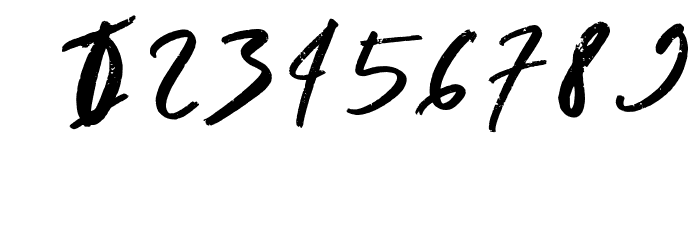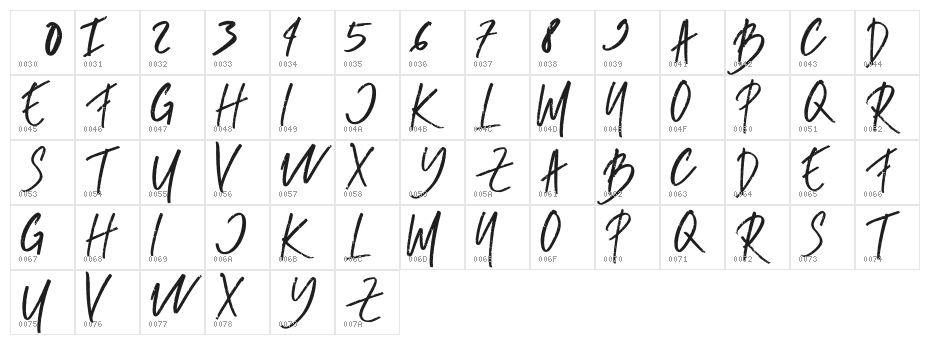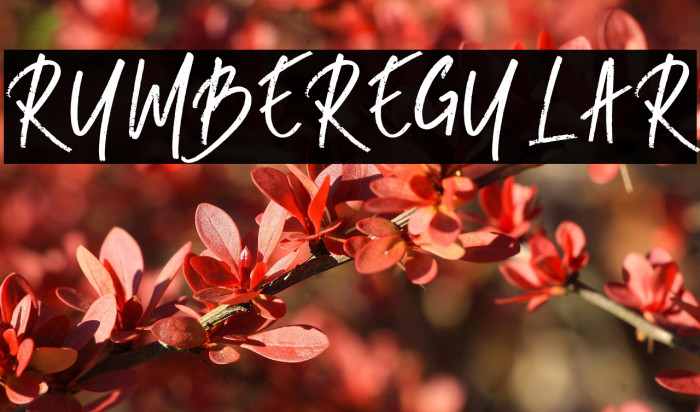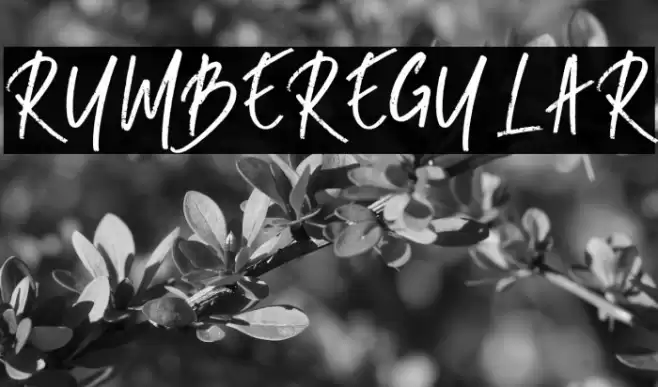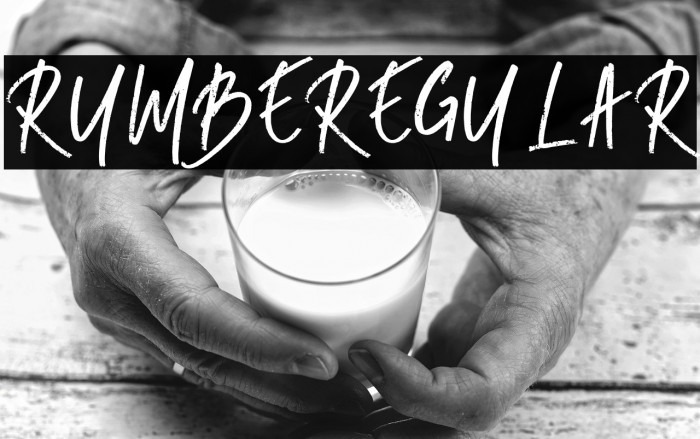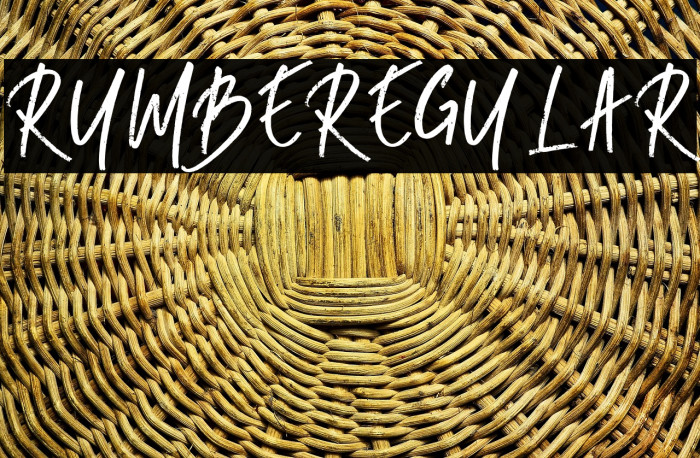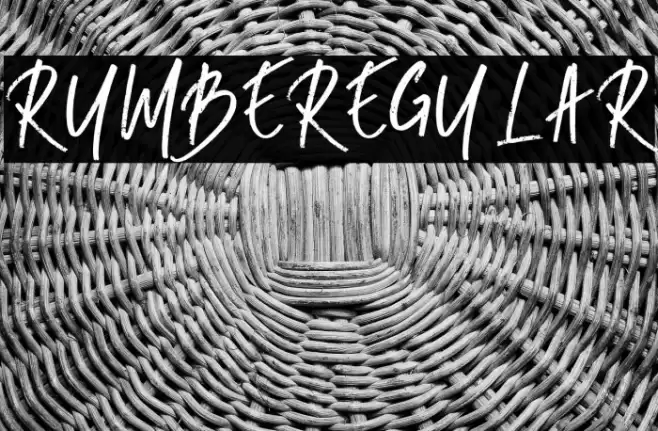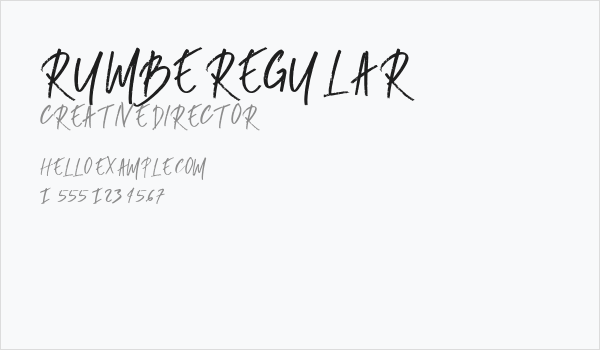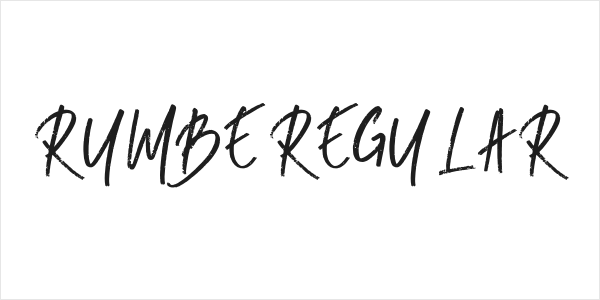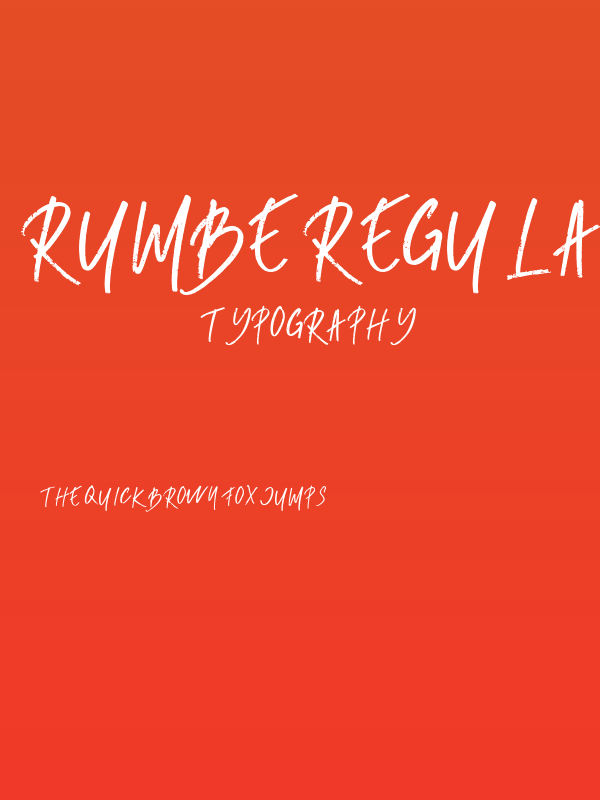
RUMBE-Regular Font
RUMBE-Regular Description
This font exhibits a dynamic and energetic handwritten style, characterized by its bold and expressive strokes. The letters are slightly slanted, giving a sense of movement and fluidity. The uppercase and lowercase letters maintain a consistent style, with a playful yet sophisticated appearance. The numbers and special characters are crafted with the same attention to detail, ensuring a cohesive look across all elements. The brush-like texture adds a personal touch, making it ideal for projects that require a humanistic and artistic feel.